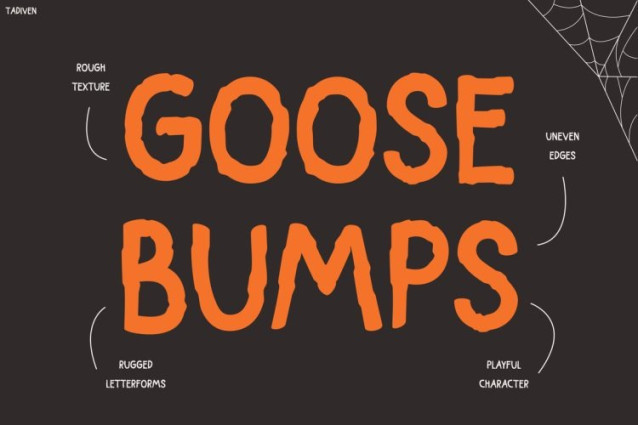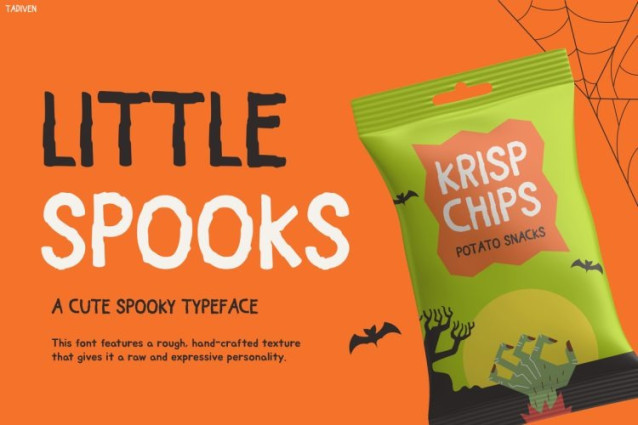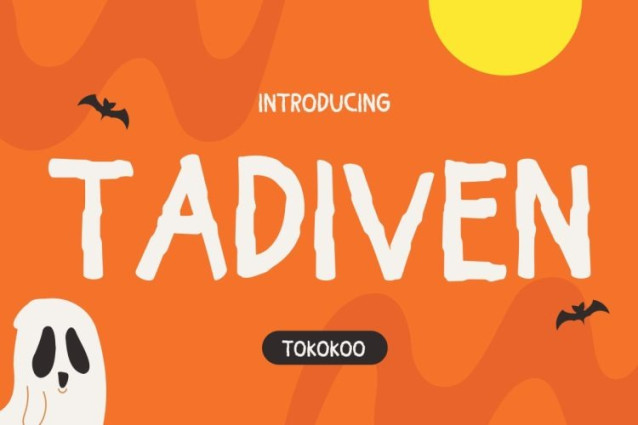
Tadiven Font is a bold and expressive display typeface that brings a fun spooky twist to kids designs. At first glance, its rough hand-drawn texture and uneven edges create a playful horror vibe that feels both quirky and exciting. Moreover, the organic letterforms give it a natural, imperfect look, which adds character and uniqueness to every word. Because of this, the font perfectly captures the spirit of Halloween, ghosts, and fun spooky adventures. In addition, despite its rough style, the font remains readable and impactful. As a result, Tadiven is both visually striking and highly functional for attention-grabbing designs.
Kids Font Tadiven is a creative display font designed to make spooky-themed projects feel fun rather than scary. Not only does it feature a hand-crafted, textured style, but it also pairs perfectly with Halloween illustrations, bright spooky colors, and playful graphics. Furthermore, the font adds personality and storytelling to your designs, making titles feel alive and engaging. Therefore, whether you are working on posters, packaging, or digital content, Tadiven delivers a bold and memorable look. Ultimately, it transforms simple text into a playful spooky experience that kids will enjoy.